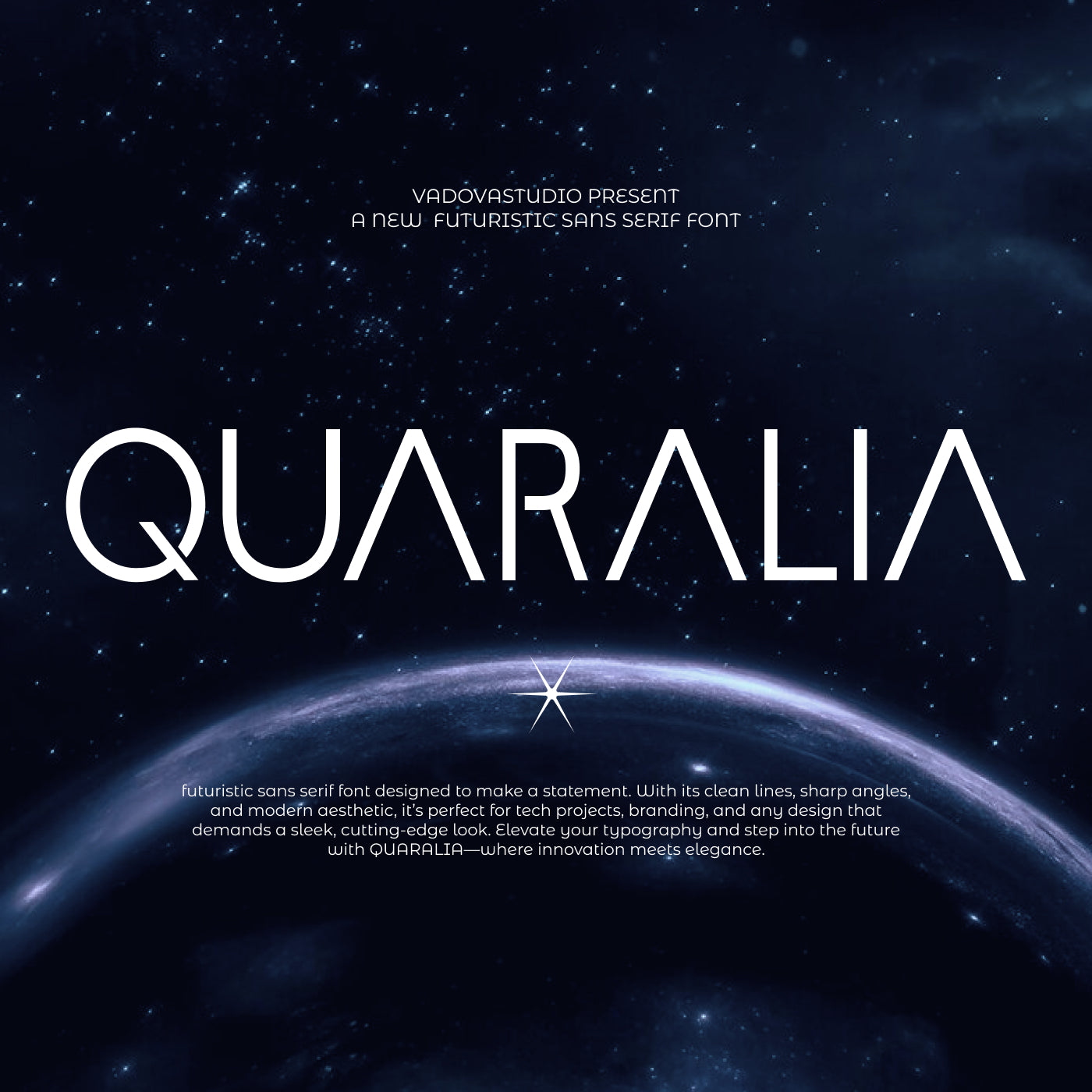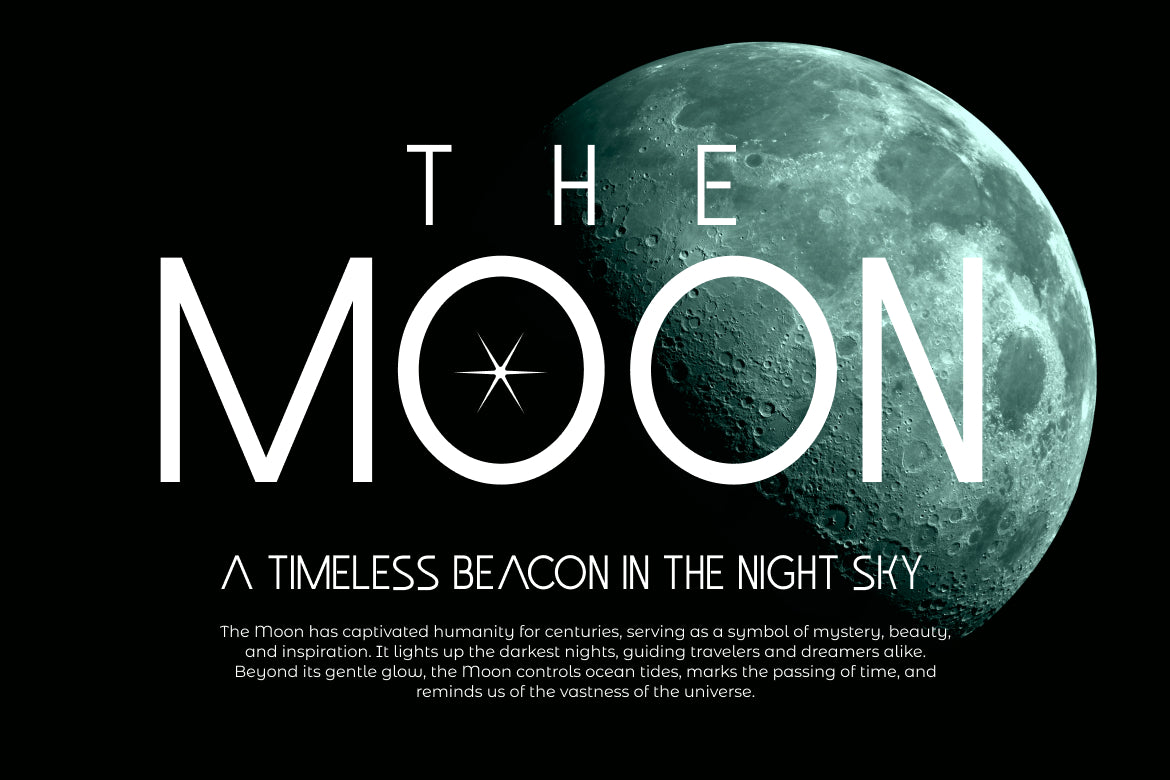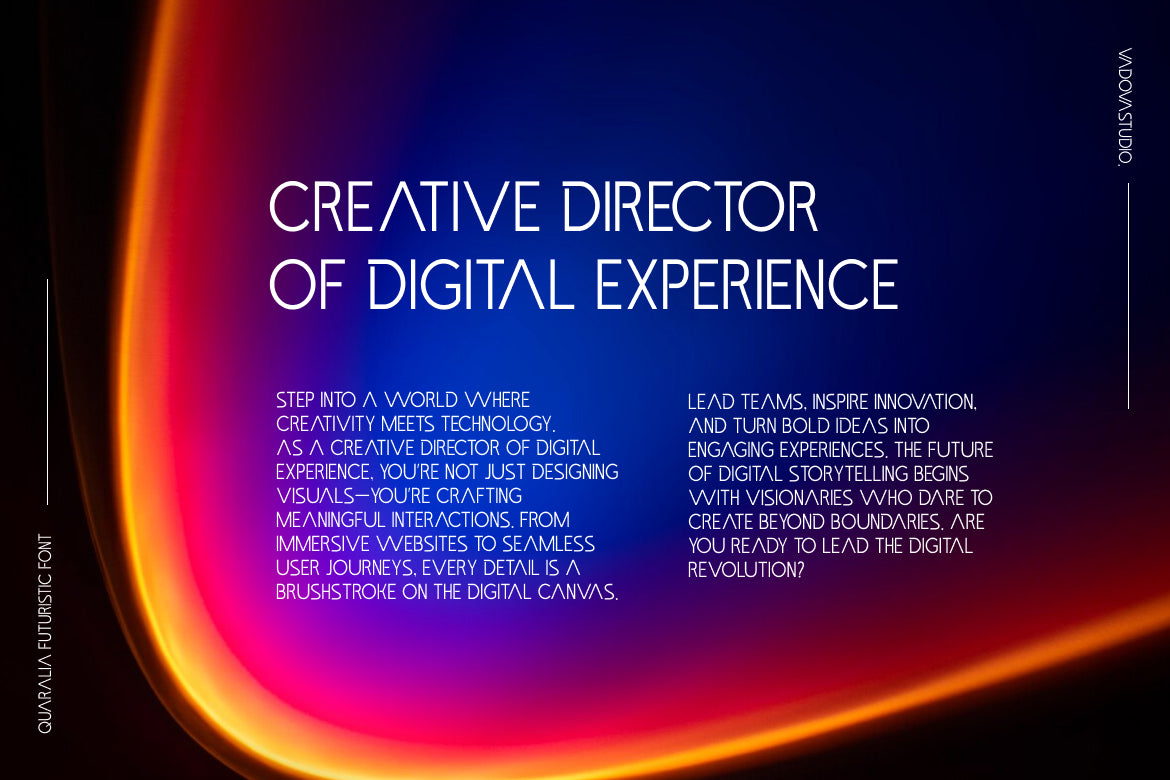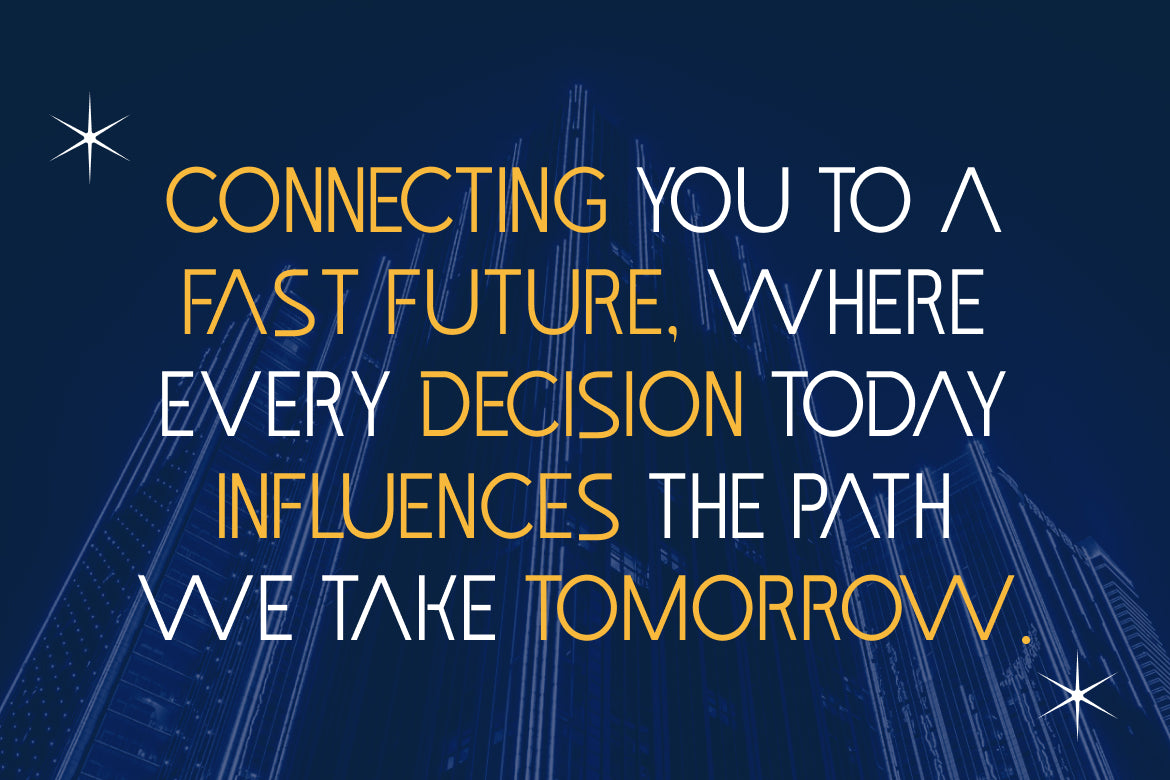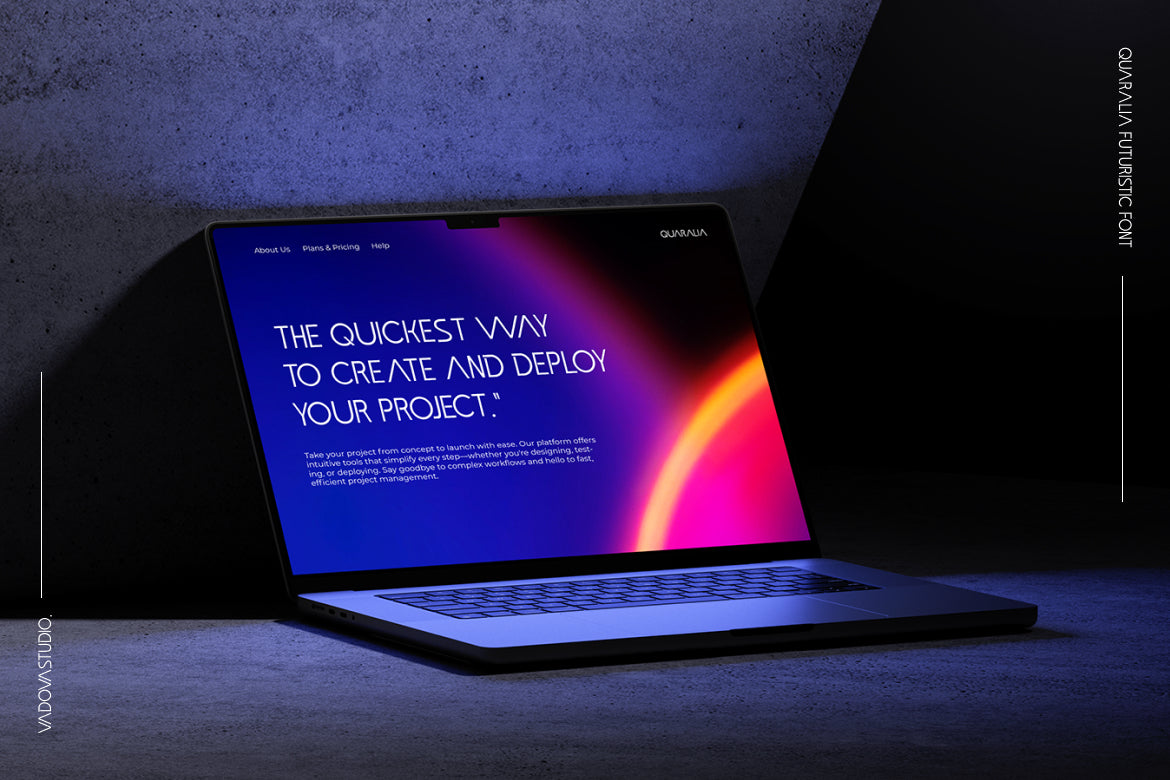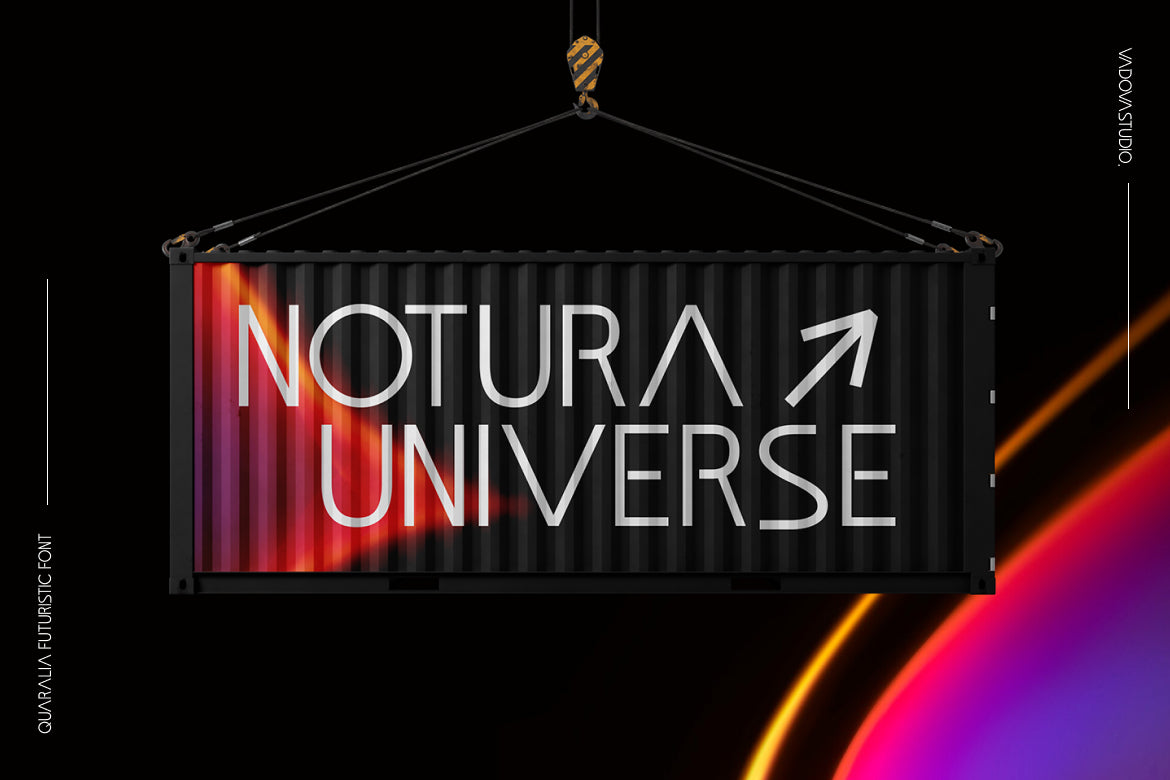
Quaralia Futuristic Sans Serif Font
Quaralia Futuristic Sans Serif is a sleek futuristic sans serif font designed for bold statements and modern innovation. With clean lines, sharp angles, and elegant spacing, it's perfect for technology branding, sci-fi titles, space-themed visuals, and high-end product design. Its minimalist yet distinctive look provides a cutting-edge vibe ideal for logos, websites, packaging, or editorial headlines. Whether used for space exploration concepts or modern corporate identity, Quaralia ensures your typography stands out with sophistication.
Quaralia Futuristic Sans Serif Font is a sleek, modern typeface featuring clean lines and sharp angles, available in TTF, OTF, and WOFF formats. It includes uppercase and lowercase characters, numerals, and punctuation, making it suitable for a variety of design applications.